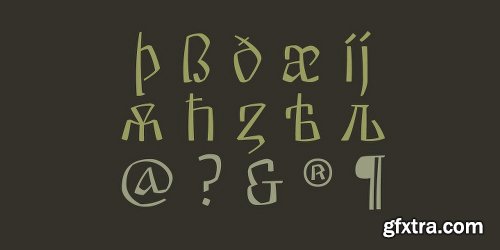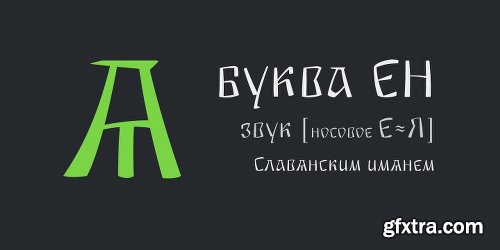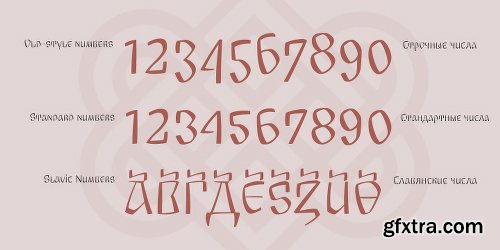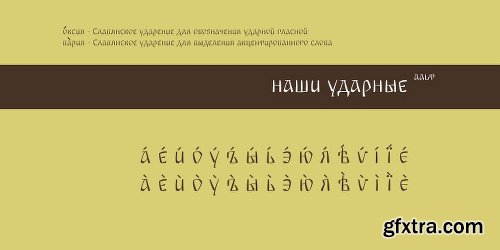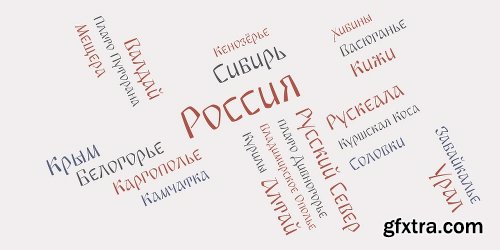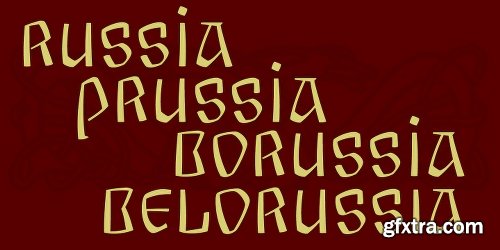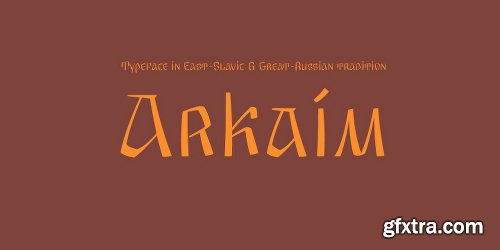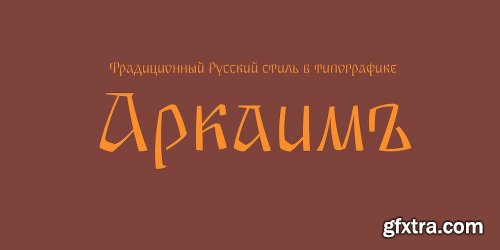
ARKAIM 字体
Arkaim is a modern typeface in traditional East-Slavic and GreatRussian style in typography. This style is not like any other style in the world. It combines elegance and brevity, depth and modernity, originality and convenience. This unique font is certainly eye-catching.
Arkaim font is named after the ancient Slavic-Aryan city located in the South of Russia, which is a symbol of antiquity, wisdom, as well as the unexplored ancient world. Arkaim is not only a historical place, but also a place of Spiritual power.
The font Arkaim has many Opentype features that will help to create interesting and unique compositions. An interesting and non-trivial solution is a kind of mixture of all caps and upper/lowercase characters.
Arkaim contains symbols of all Slavic and European languages. There are fractions, superscripts and subscripts, and many others. There is a standard number and the old-style number, also Slavic numbers. There are all the historical characters Of the ancient Slavic script called Bukvitsa, today mistakenly called Cyrillic.